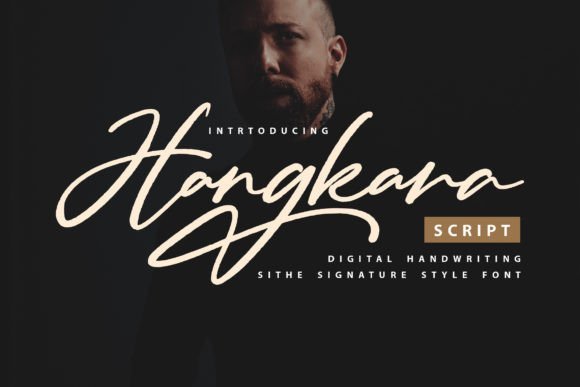
Adding a Personal Touch with Hangkara Font
As a designer, there’s nothing quite like the thrill of bringing a client’s vision to life. You’re sifting through fonts, colors, and textures, trying to capture the essence of their brand or special occasion. It’s in these moments that the right font can make all the difference – and that’s where Hangkara Font comes in.
This elegant handwritten font is perfect for adding a touch of personality to your designs. Whether it’s a wedding invitation, thank you card, or custom logo, Hangkara Font’s unique style is sure to make a lasting impression. With its PUA encoding, you can easily access all the glyphs and swashes you need to create truly one-of-a-kind designs.
For designers, Hangkara Font is a valuable asset in their toolkit. Its versatility and ease of use make it an ideal choice for a wide range of projects – and its beautiful, handwritten style is sure to delight clients and customers alike.
- Unique Characteristics: Hangkara Font features a unique blend of traditional and modern elements, with intricate details and subtle nuances that add depth and character to any design.
Overall, I’m really enjoying the Hangkara Font. It’s a unique and stylish typeface that adds a touch of elegance to any design project. Here are some things that stand out:
- ✨ Beautiful script-like lines and flourishes that make it perfect for invitations, weddings, or any other formal occasion.
- ✨ The font is highly customizable, making it easy to adjust the style to fit your specific needs.
- ✨ It’s a great choice for adding a personal touch to digital and print materials, such as logos, business cards, and letterheads.
However, like any font, Hangkara has its limitations:
- ⚠️ It may not be the best choice for body text or large blocks of text, as it can become overwhelming and difficult to read.
- ⚠️ The font is quite decorative, so it may not be suitable for projects where a clean and simple look is required.
Overall, I think Hangkara is a fantastic addition to any designer’s toolkit. It’s a versatile and stylish font that can add a touch of sophistication to any project. With a little creativity and restraint, it can be a game-changer for designers looking to add some flair to their work.